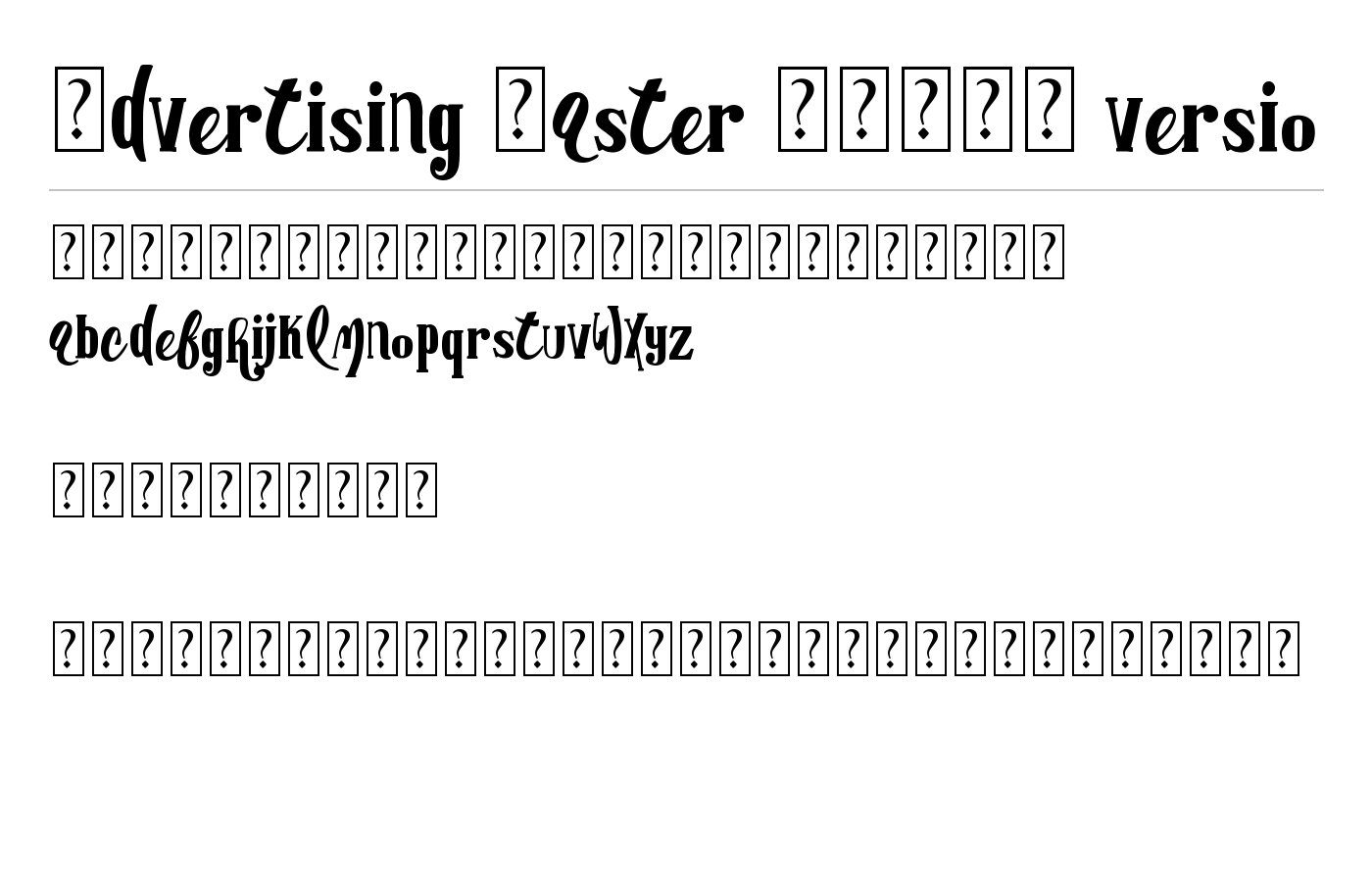
Advertising Master LIGHT version is a playful sans serif font with a narrow, condensed style and a light weight that adds a whimsical touch to its tall, quirky letterforms. Its mix of unique shapes and slightly uneven stroke flow gives it a lively, vintage-inspired personality, making it ideal for eye-catching headlines, posters, and creative branding that seeks a fun yet distinctive look. This font works best where a bold visual character is needed to stand out, especially in advertising and packaging design.
Advertising Master LIGHT versio Font
About Advertising Master LIGHT versio Font